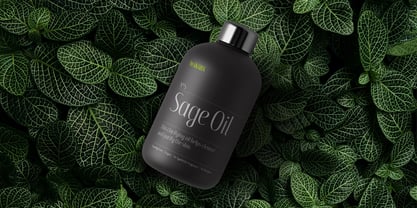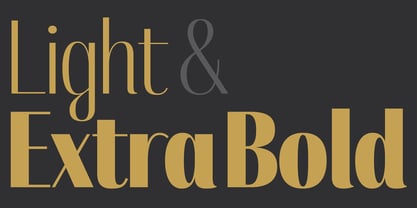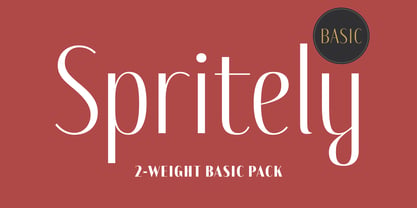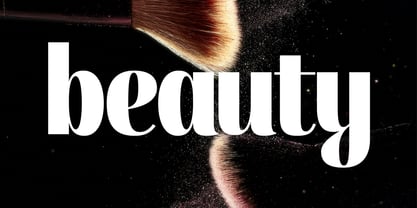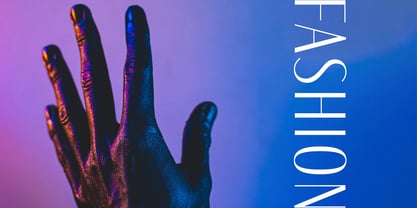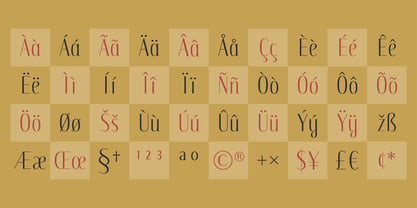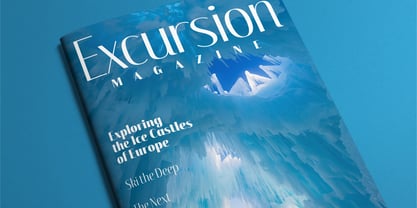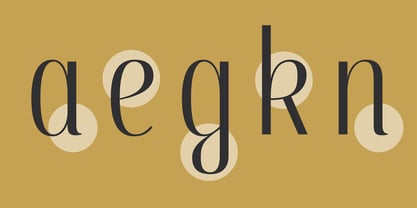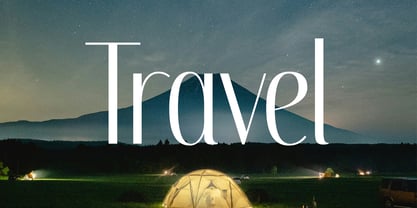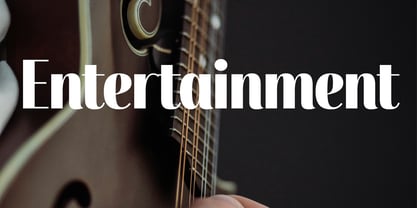
Spritely Basic
Die Schriftfamilie Spritely Basic wurde von Kevin Foley entworfen und von Kevin Foley Fonts veröffentlicht. Spritely Basic enthält 2 Stile und Familienpaketoptionen. Mehr über diese Familie
Spritely Basic features two striking weights — Light and Extra Bold — along with a fundamental character set essential for a variety of design projects. This font exudes elegant sophistication, characterized by its unique cursive-like terminals and looped glyphs. As a high-contrast display font family, Spritely empowers you to craft unforgettable headlines, logos, and branding that embody a modern yet refined aesthetic. Ideal for branding, editorial, and web design, Spritely Basic is a versatile choice for designers seeking to make a lasting impression. For the complete Spritely family with more weights, a more robust character set, and more extensive language support, check it out here: https://www.myfonts.com/collections/spritely-font-kevin-foley-fonts